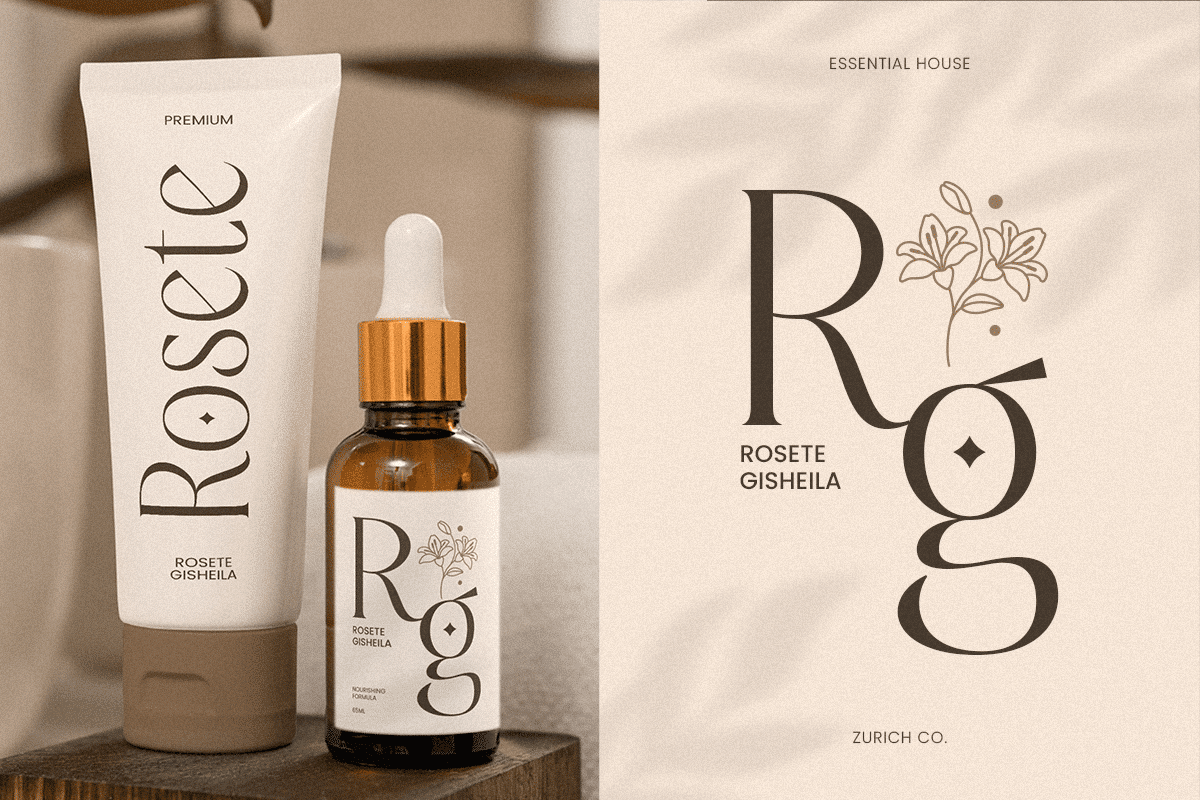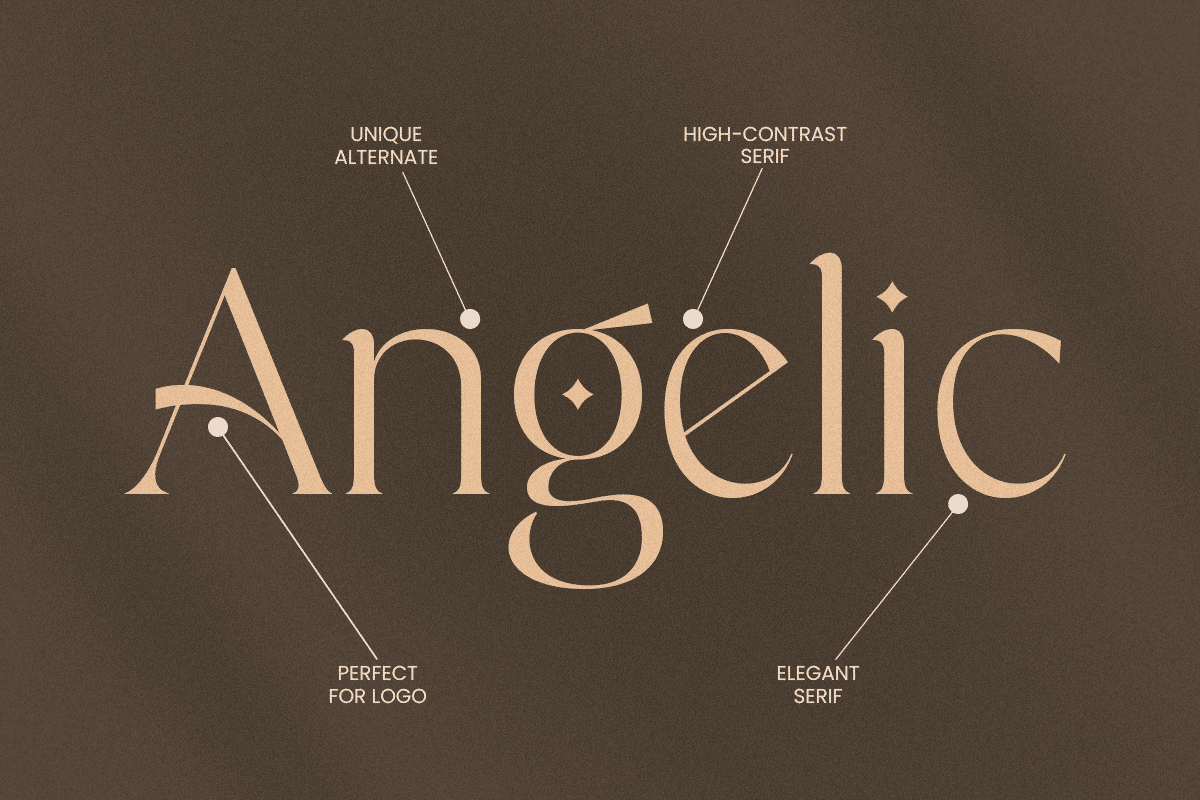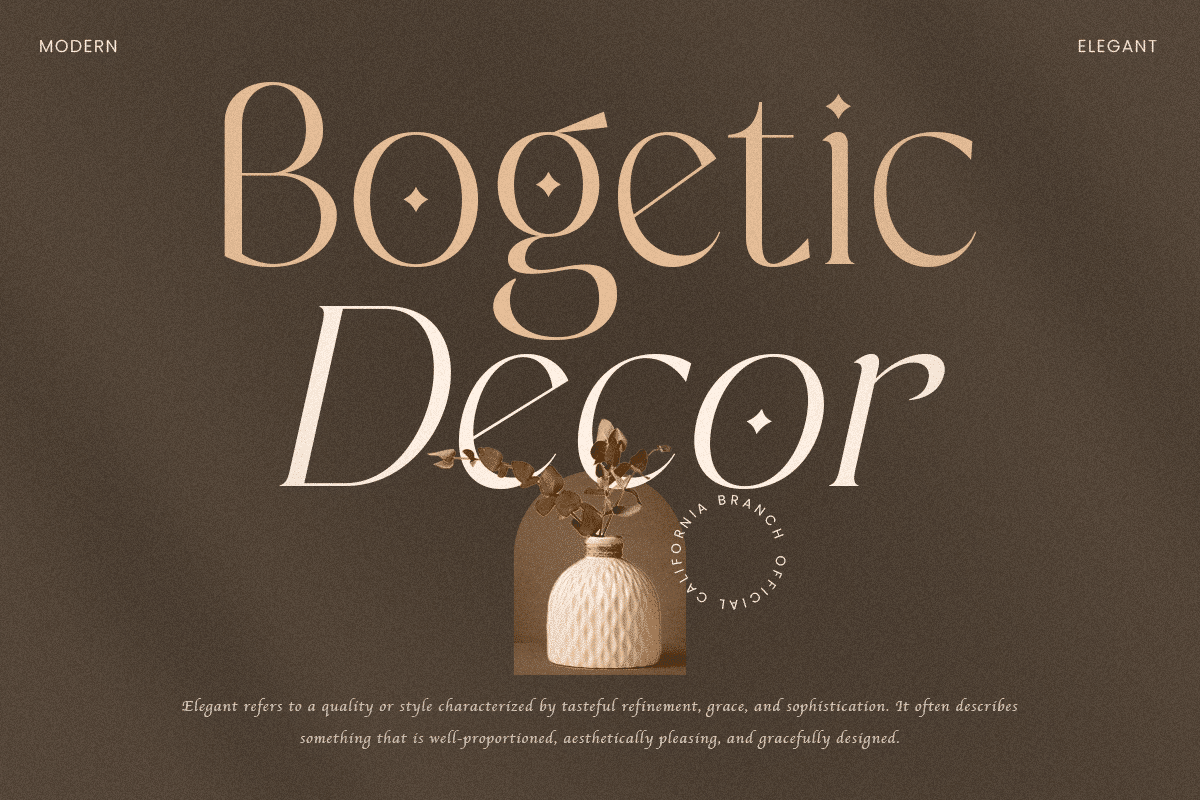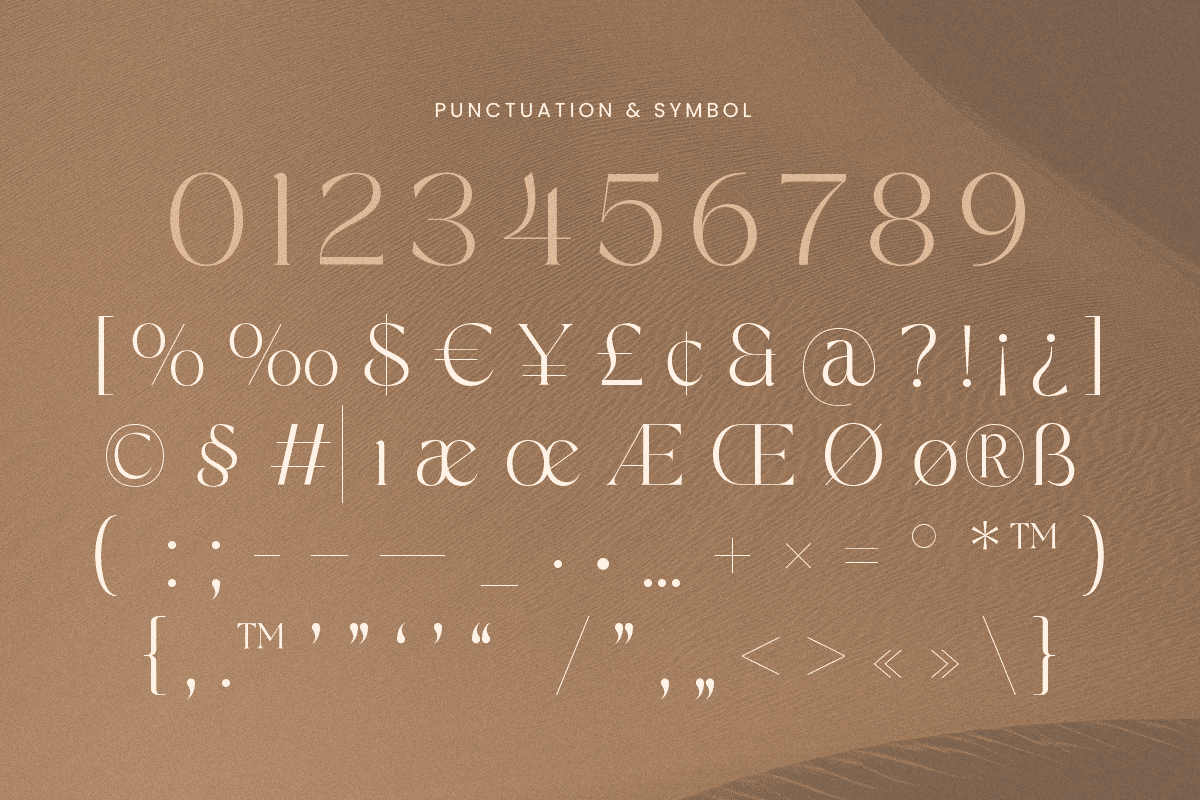
Spring – Modern Editorial Logo Font
Spring is a modern editorial serif logo font designed to bring refined sophistication and clean contemporary charm to your typography. With graceful serif details, polished proportions, and a balanced visual rhythm, this typeface creates a premium tone that feels elegant, stylish, and instantly brand-ready.
Built for logo-focused and editorial-driven design, Spring works beautifully across wordmarks, brand identity systems, magazine covers, website headers, packaging, labels, invitations, signage, presentations, and upscale marketing visuals. Its editorial serif structure gives every composition a polished, high-end presence while maintaining readability across both digital and print layouts.
Whether you’re building a fashion identity, creating a beauty brand, designing premium packaging, or crafting modern editorial layouts, Spring provides a sophisticated serif foundation that makes your typography feel timeless, graceful, and unforgettable.
Inspiration Behind Spring
Spring is inspired by contemporary editorial typography and modern luxury branding—where elegant serif forms, clean spacing, and refined visual balance shape premium communication. The design focuses on stylish clarity and polished presence to support logos, headlines, and identity systems with a fresh, sophisticated character.
Spring Font Features:
- Modern editorial serif letterforms optimized for logo and branding design
- Elegant structure with refined premium visual character
- Ready with regular and italic version for editorial style
- Strong readability for headlines, wordmarks, and editorial layouts
- OpenType features for polished professional typesetting
- Editorial logos, wordmarks, and premium brand identity systems
- Fashion, beauty, skincare, fragrance, and boutique branding
- Magazine covers, lookbooks, and elegant headline typography
- Premium packaging, labels, invitations, and upscale stationery
- Social media campaigns, websites, presentations, and marketing assets
Elevate your branding with Spring—a modern editorial serif logo font made for elegant, premium visual impact. ✨